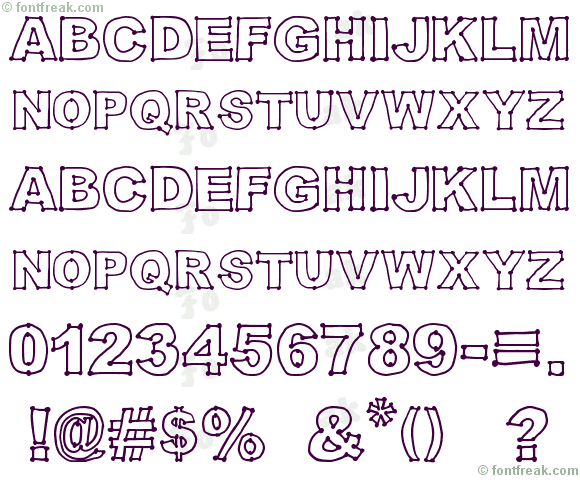
Original 301 by woodcutter Manero is a distinctive display typeface that captures attention with its unique character. This font features a playful, hand-drawn aesthetic that evokes a sense of creativity and individuality. The stroke weight is consistent yet varied, providing a relaxed and inviting feel, while the slightly uneven edges add a touch of whimsy. The spacing is well-balanced, allowing for clarity in text while maintaining a lively appearance.
This typeface shines in a variety of applications. It’s perfect for vibrant wedding invitations that require a personal touch, creating an inviting atmosphere for guests. Additionally, Original 301 works wonders on movie posters, where its bold presence can effectively convey the theme of the film. It’s also an excellent choice for restaurant menus, particularly for eateries looking to highlight their unique offerings with a friendly and approachable vibe. Small business owners can leverage this font for branding materials, including flyers and promotional graphics, ensuring their message stands out in a crowded market.
Targeting graphic designers, small business owners, and content creators, Original 301 is versatile enough to suit a range of projects while appealing to those who appreciate a handcrafted look in their designs. Its freeware license makes it accessible for anyone looking to enhance their creative work without financial constraints.
What truly sets Original 301 apart is its ability to combine fun and functionality. The font embodies a spirit of creativity while remaining highly legible, making it a valuable asset for any designer’s toolkit. With Original 301 font free download available, now is the perfect time to incorporate this unique typeface into your next project and bring your designs to life.